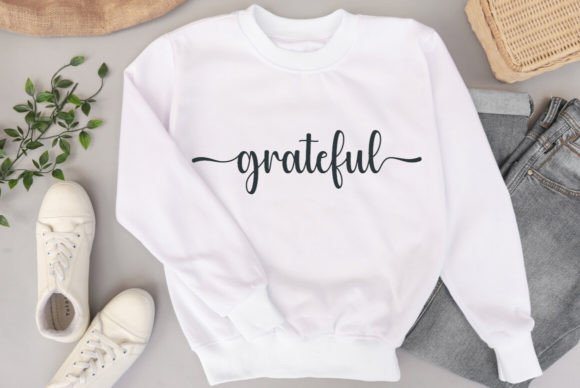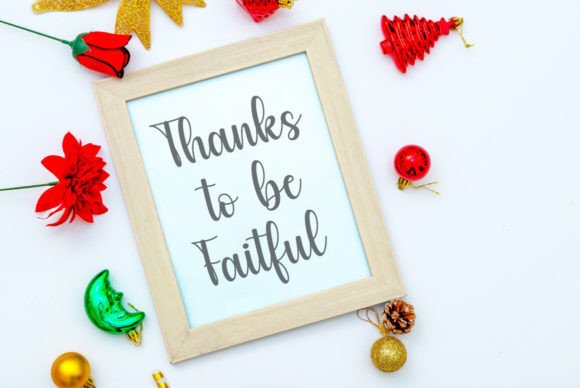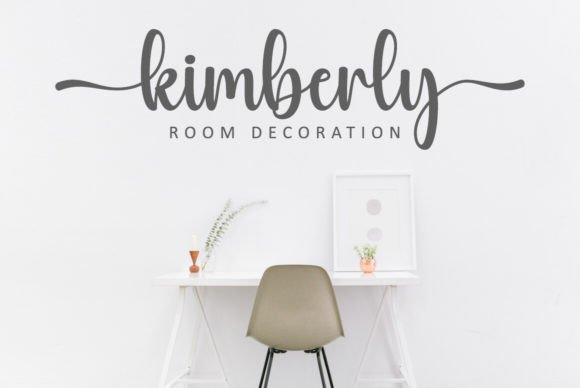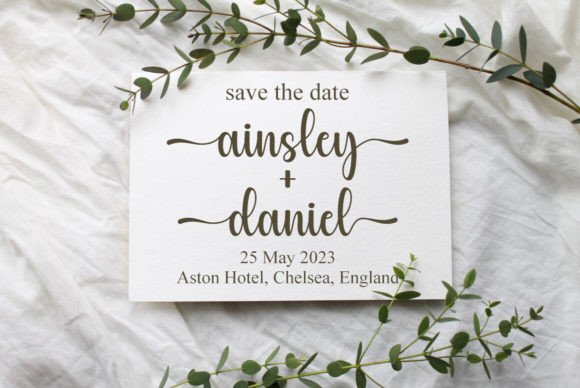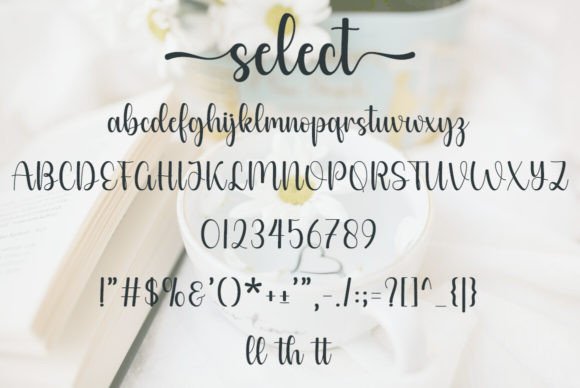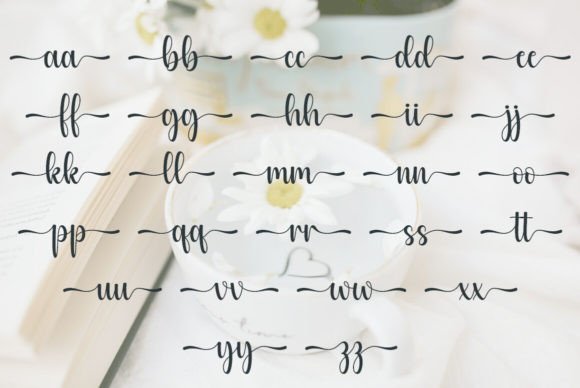
Introduction to Select Font
As a designer, have you ever found yourself staring at a blank canvas, searching for the perfect font to bring your creative project to life? You’ve poured your heart and soul into the design, but something’s missing – that special touch that sets it apart from the rest. That’s where the Select Font comes in, a stunning and elegant handwritten font that adds a touch of sophistication to any design.
With its high-quality glyphs and alternates, the Select Font is the perfect resource for designers looking to elevate their designs. Whether you’re creating a wedding invitation, a thank you card, or a logo, this font is sure to impress. And the best part? It’s PUA encoded, making it easy to access all the features and customize your design to perfection.
Select Font: Essential Design Resource for Creative Projects
Honest Review: Select Font
I recently stumbled upon Select Font and was excited to dive in and see what it had to offer. As a designer, I’m always on the lookout for high-quality resources that can elevate my creative projects.
Tips for Getting the Most Out of Select Font
Choose a font that is consistent with your brand identity to create a cohesive look. Experiment with different font sizes and styles to create visual hierarchy and emphasis. Use a transparent background to create a clean and minimalist design.
Select Font is commonly used in brochures, business cards, and social media graphics. It’s also used in web design, graphic design, and print design. You can use it to create eye-catching headlines, engaging paragraphs, and professional-looking typography.